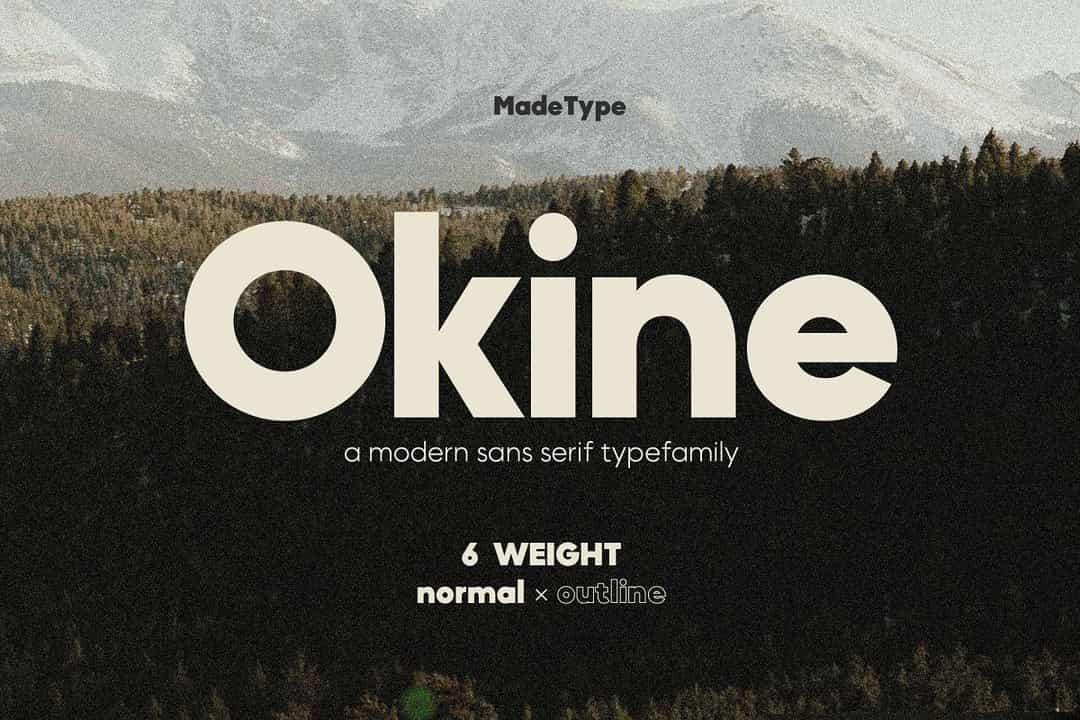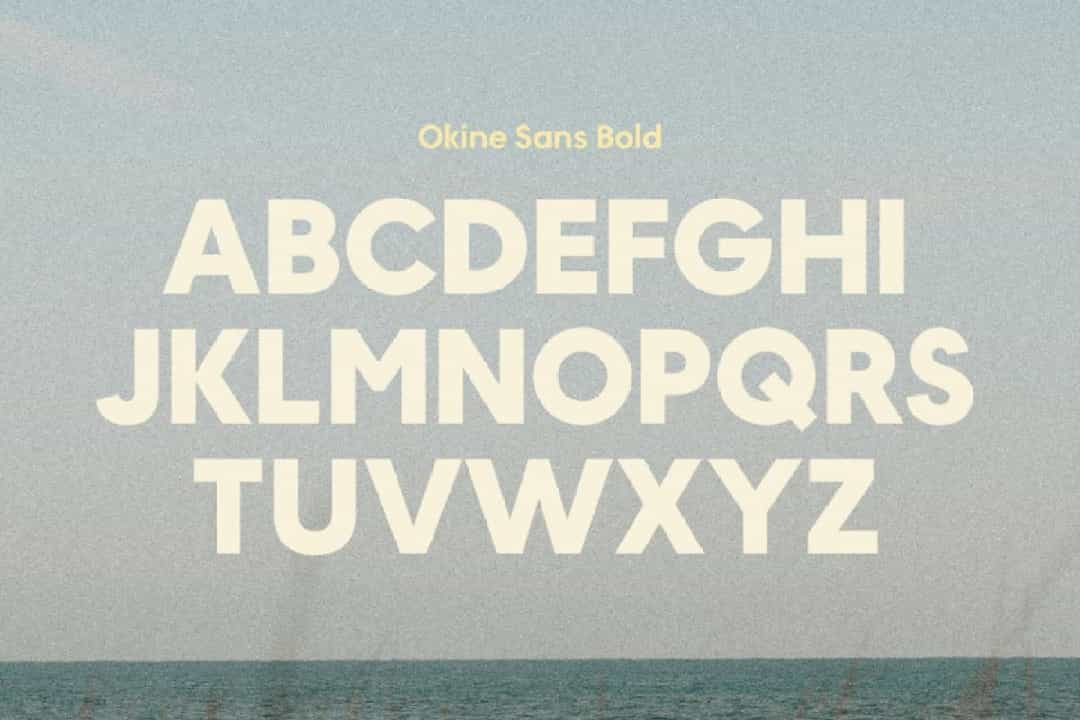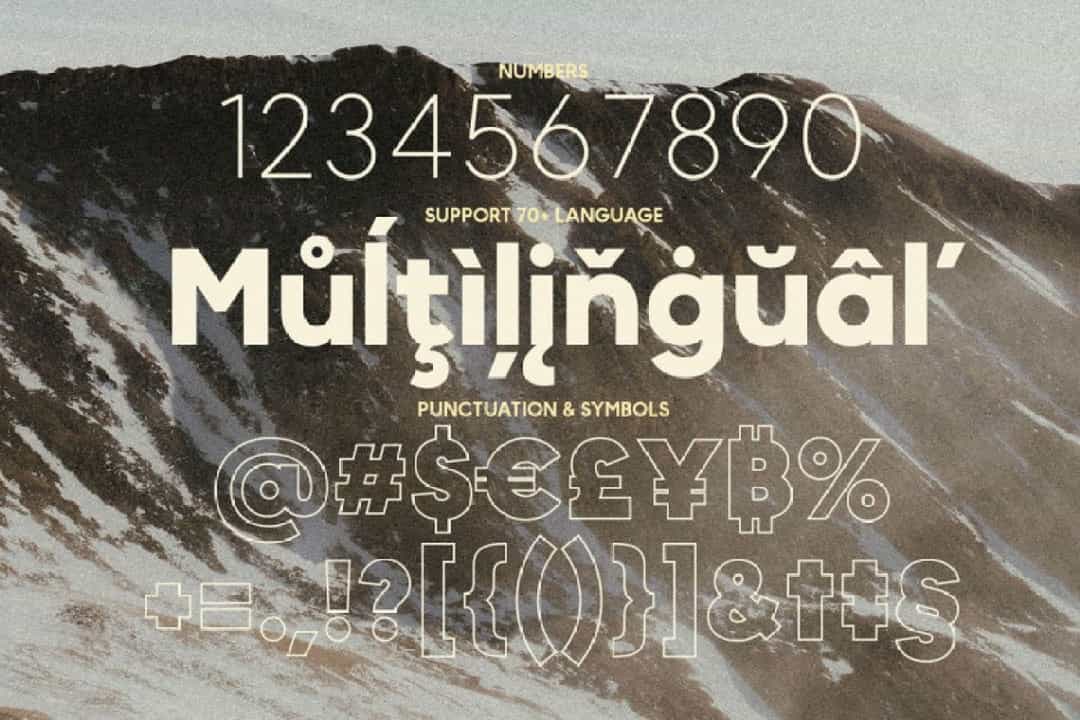
Okine Font is a roman, humanist geometri and grotesk sans serif font family inspired by text-focused advertisements found in magazines during the 1980s and 90s. By employing both lowercase and uppercase letters for its Nineties Headliner font family, it makes an ideal font choice for creating logos or using as main header text on large scale projects.